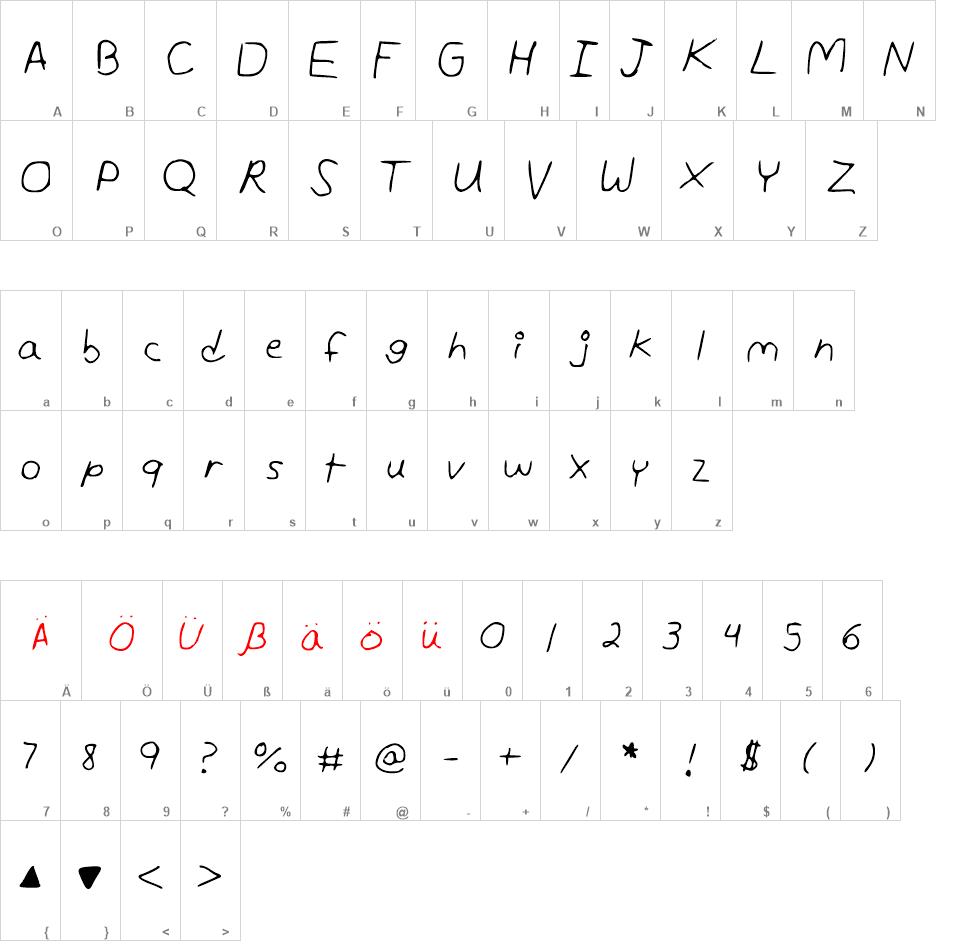
Andrea Unedited
Andrea Unedited font
Andrea Unedited
It's a little lopsided, but that's pretty much me. Best for a raw, unedited teen handwriting look I guess. I mean, I'm a teen and I'm unedited.
Also, this is my first font.